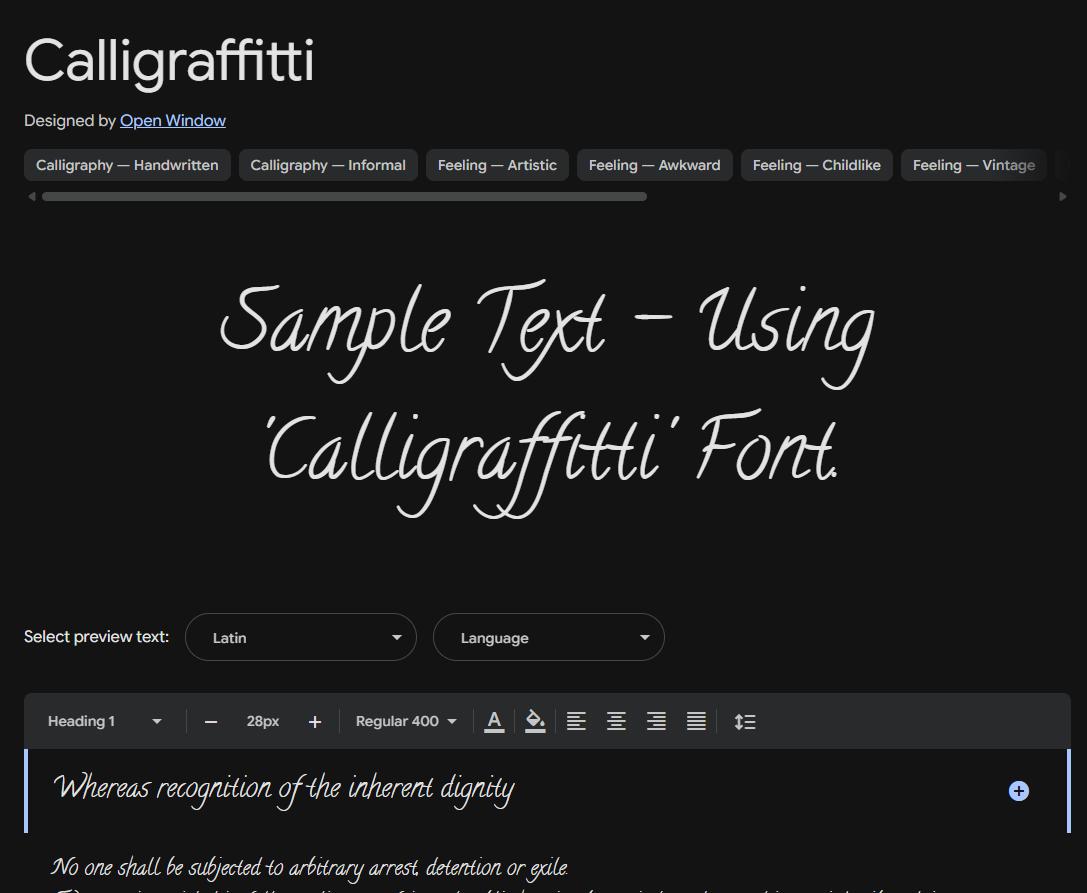
Calligraffitti, a singular-style display typeface crafted by Dathan Boardman of Open Window, represents a sophisticated synthesis of formal calligraphic discipline and the raw, kinetic energy of urban street aesthetics. By leveraging organic stroke modulation and expansive, sweeping ascenders, this font captures the fluid velocity of handheld nibs, transcending the static nature of digital typography. Technically, the face balances a generous x-height with aggressive gestural terminals, ensuring that its intricate vector paths remain legible across diverse screen resolutions without sacrificing the spontaneous, hand-drawn character of its glyph set. Through optimized kerning pairs and a rhythmic baseline cadence, Calligraffitti provides a semantically rich visual language that bridges the gap between traditional script heritage and contemporary graphic expression.
The Calligraffitti font family represents a sophisticated fusion of informal calligraphy and street-influenced gestural rhythm, functioning as a display face that prioritizes human spontaneity over mechanical precision. Characterized by its unique handwritten texture, the typeface employs irregular stroke modulations and idiosyncratic glyph structures to achieve an artistic yet intentionally awkward aesthetic that mirrors the raw sincerity of childlike expression. This vintage-inspired font resonates with a loud, active energy, where its playful ligatures and energetic kerning cultivate a happy, sincere atmosphere rarely found in standard digital type. By synthesizing these elements, Calligraffitti serves as a loud and active tool for designers seeking to project a playful, happy, and artistic soul, effectively utilizing its vintage charm to ground contemporary projects in a sincere, handwritten authenticity.
Calligraffitti, a single-style typeface from Open Window, is fundamentally unsuitable for high-stakes informational environments such as medical labeling, legal disclosures, or dense financial spreadsheets where legibility and cognitive load are paramount. Due to its casual, irregular baseline and the rhythmic variability of its calligraphic strokes, the font lacks the necessary optical scaling and uniform x-height required for rapid scanning and accessibility compliance under WCAG guidelines. In technical applications, the typeface's expressive flourishes and inconsistent kerning can lead to poor sub-pixel rendering at small point sizes, causing character collisions that compromise the integrity of the data being presented. Consequently, businesses requiring a perception of stoic authority, clinical precision, or extreme clarity must avoid Calligraffitti, as its gestural energy and high-contrast terminal details introduce visual noise that undermines the functional requirements of long-form body text and mission-critical user interfaces.
Calligraffitti excels in designs that require a blend of urban grit and traditional elegance, such as street-wear branding or artistic posters. Its fluid strokes and rhythmic irregularities leverage the calligraphic-meets-graffiti aesthetic, achieving high visual impact in compositions that utilize asymmetrical grid layouts.
This font is not recommended for extensive body copy as its decorative flourishes and varying stroke widths can cause visual fatigue for the reader. Technical analysis of the glyph architecture reveals that its low x-height and high stroke contrast significantly impede scanning speeds and legibility in dense typographic blocks.
Clean, geometric sans-serifs like Montserrat or Open Sans provide a stable visual anchor that balances the font's expressive movement. Establishing a strong typographic hierarchy through pairing with high-legibility grotesques creates a balanced kerning-to-white-space ratio that stabilizes the overall layout composition.
High-contrast palettes, such as white text on dark backgrounds, emphasize the font's unique texture and hand-drawn quality. Chromaticity tests indicate that the font's sharp terminals and varying weights maintain edge definition better when the Luminance Contrast Ratio (LCR) exceeds 7:1.
It is highly effective for lifestyle or creative brands seeking a personalized, artisanal identity that stands out from corporate minimalism. From a vector geometry perspective, the intricate paths and anchor point density require careful path simplification to ensure scalability and clean reproduction across diverse physical media.
Readability diminishes significantly at small sizes because the delicate connections between letters tend to blur or disappear. Rasterization at low resolutions often leads to aliasing artifacts on the thin descenders, making it essential to keep the font above 18pt for digital UI components.
The standard version primarily supports Basic Latin characters, making it suitable for English and several Western European languages. Developers should verify the OpenType (OTF) feature set, as limited Unicode coverage for extended Latin-B or Cyrillic characters may result in fallback font "tofu" blocks in global applications.
Increasing letter spacing often disrupts the natural, cursive-like flow that gives the font its authentic calligraphic charm. Excessive tracking destroys the intended ligatures and optical rhythm, leading to a fragmented grapheme arrangement that violates the font's gestural continuity.
While versatile, it performs exceptionally well in digital headers where its expressive nature can capture user attention immediately. Print production benefits from the font's high-resolution organic edges, where CMYK ink absorption profiles can actually enhance the textured ink-on-paper look of the stroke terminals.
It serves as a modern alternative for formal events that want to project a relaxed, contemporary, or artistic vibe rather than traditional stiff formality. Incorporating this font into stationery design requires careful management of negative space to prevent the high-swash glyphs from causing ink bleed issues during high-pressure letterpress printing.